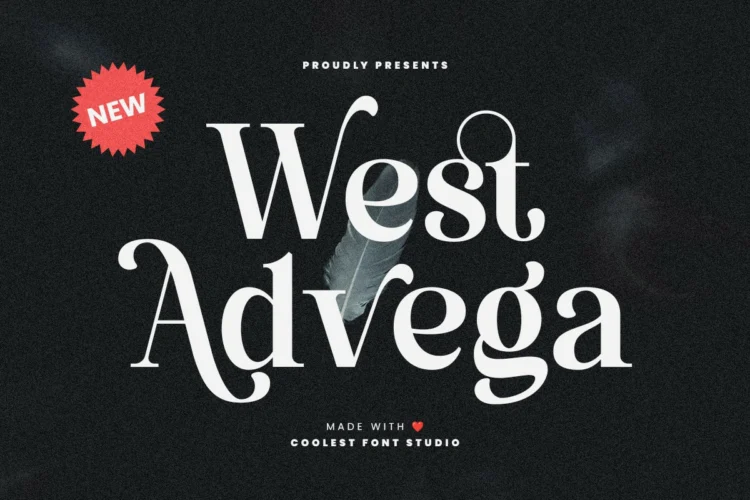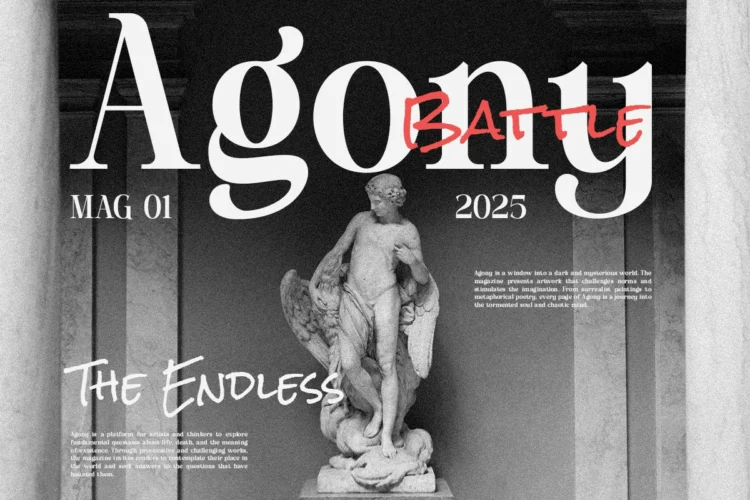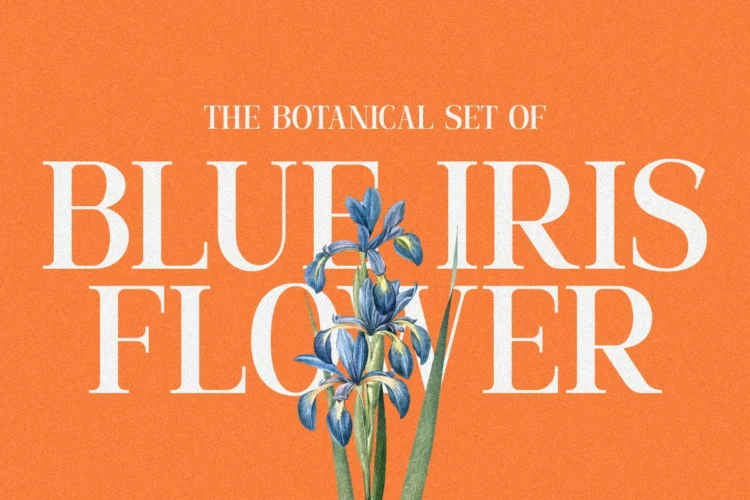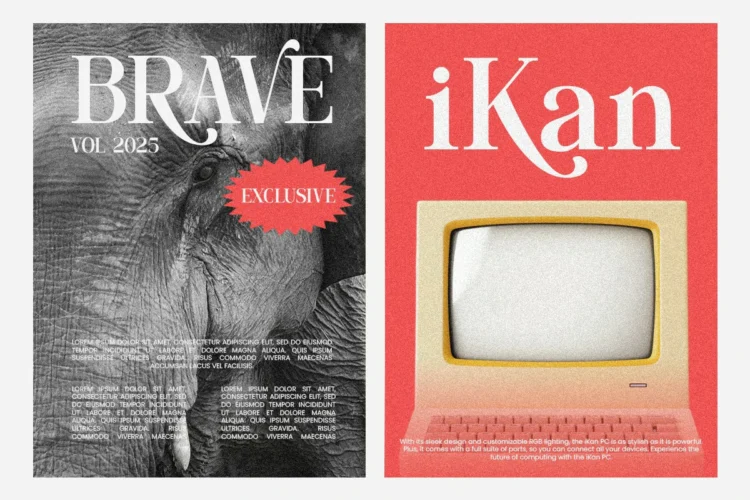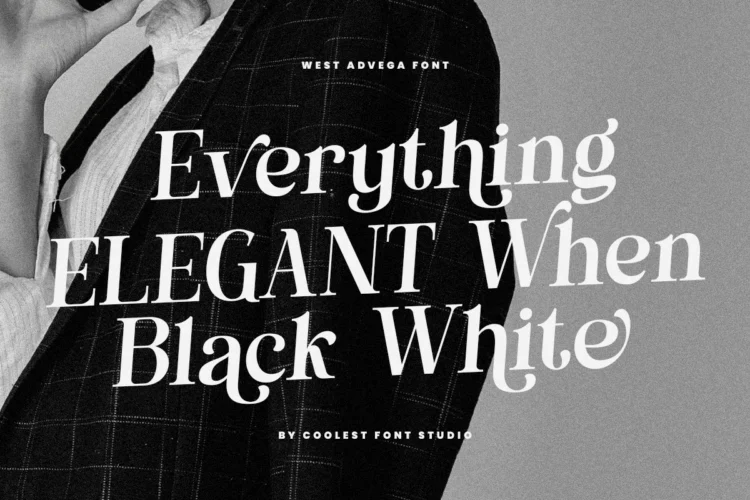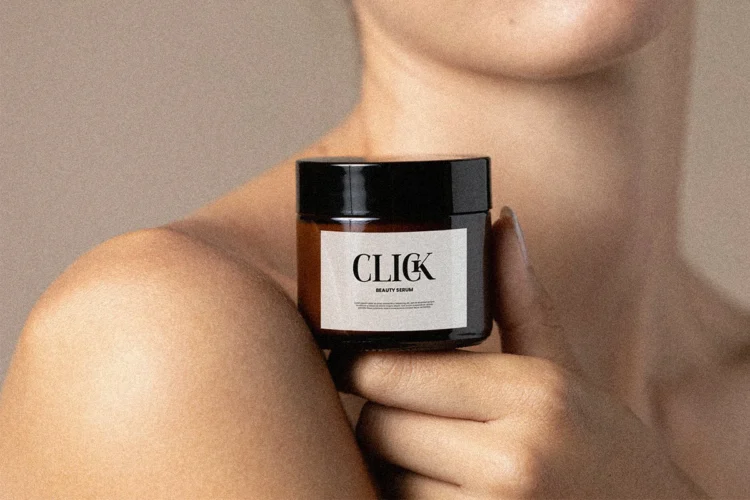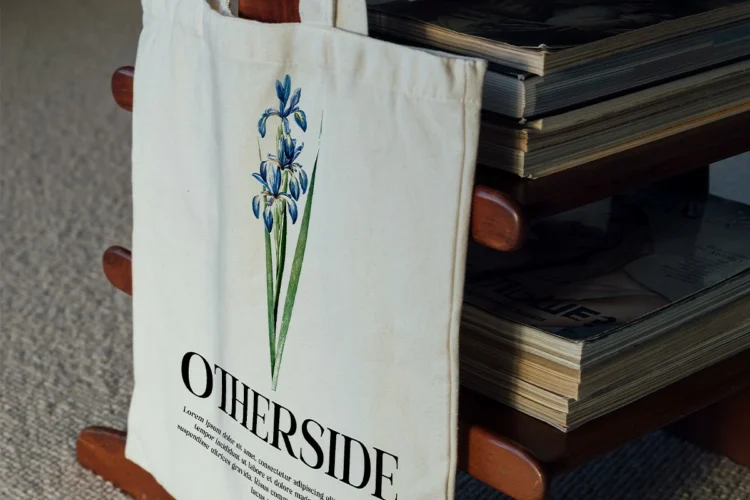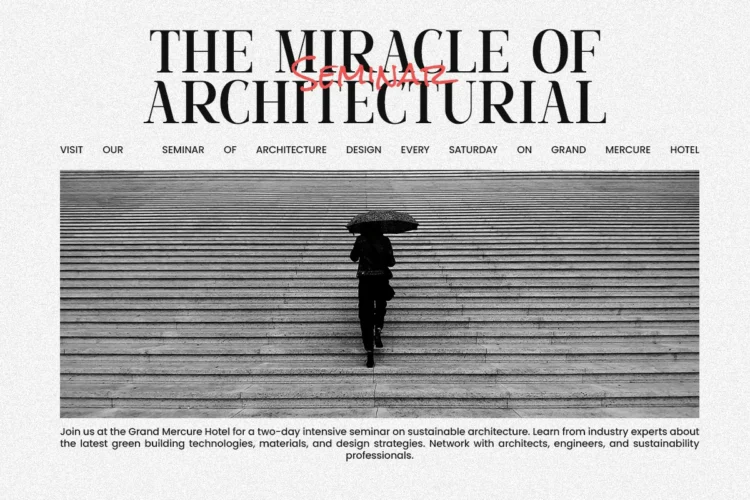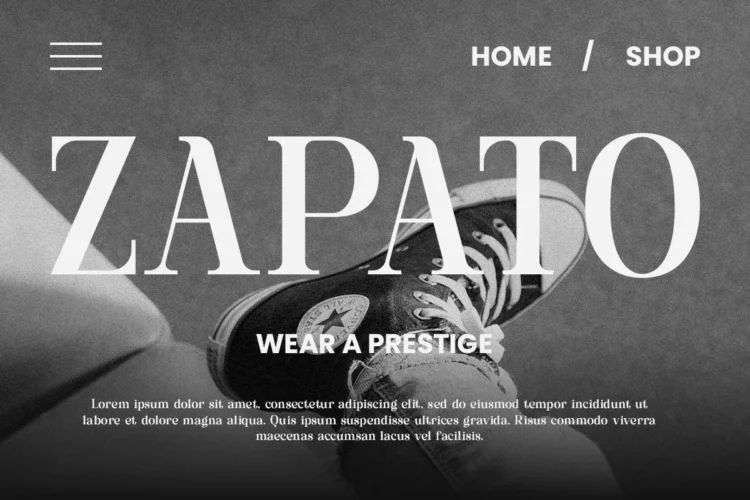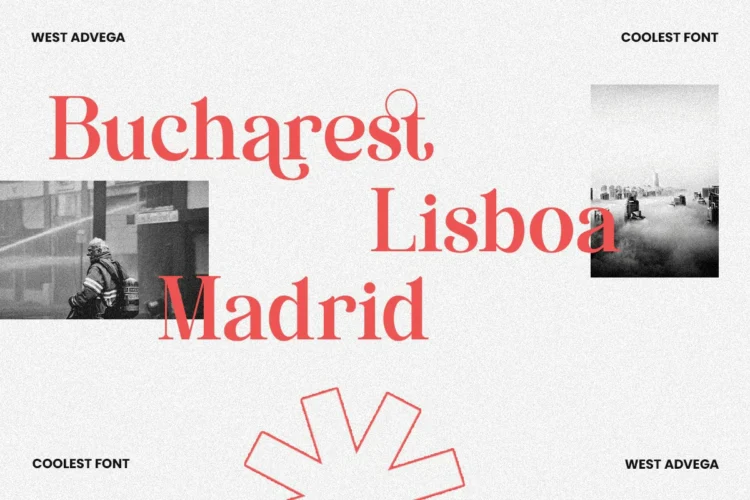
✨ West Advega Font – Elegant Serif Font for Modern Branding and Luxury Design ✨
Introducing West Advega Font, a modern serif font designed to bring timeless sophistication and artistic flair to your designs. With its beautiful alternates and ligatures, this aesthetic font combines classic charm and modern elegance, creating a perfect balance for luxury branding and editorial visuals.
The West Advega Font features refined strokes, high contrast, and graceful letterforms making it an elegant font that exudes confidence and style. Whether you’re designing a logo, crafting a poster, or creating cosmetic packaging, this luxury font will elevate your work into a piece of art.
West Advega Font Included :
- Alternates
- Ligature
West Advega Font is versatile and works beautifully for :
- Luxury branding & packaging design
- Editorial, magazine, and fashion layouts
- Cosmetic and skincare label design
- Modern logos and visual identities
- Posters, book covers, and invitations
- Headings, taglines, and marketing materials
🎨 West Advega Font Features :
- Complete alternates and ligatures for creative flexibility
- Elegant Serif font with modern curves and classic structure
- Suitable for both print and digital media
- Smooth readability and perfect letter balance
- Works beautifully in large displays and headline design
This cool font is not just visually appealing it’s versatile, timeless, and designed for professionals. The West Advega Font combines the grace of a classic font with the boldness of a modern font, making it the ideal branding font, headline font, cover font, and goods font for creators who value sophistication and individuality.
Make your designs unforgettable with West Advega Font, the perfect choice for those who appreciate elegance, balance, and beauty in typography.